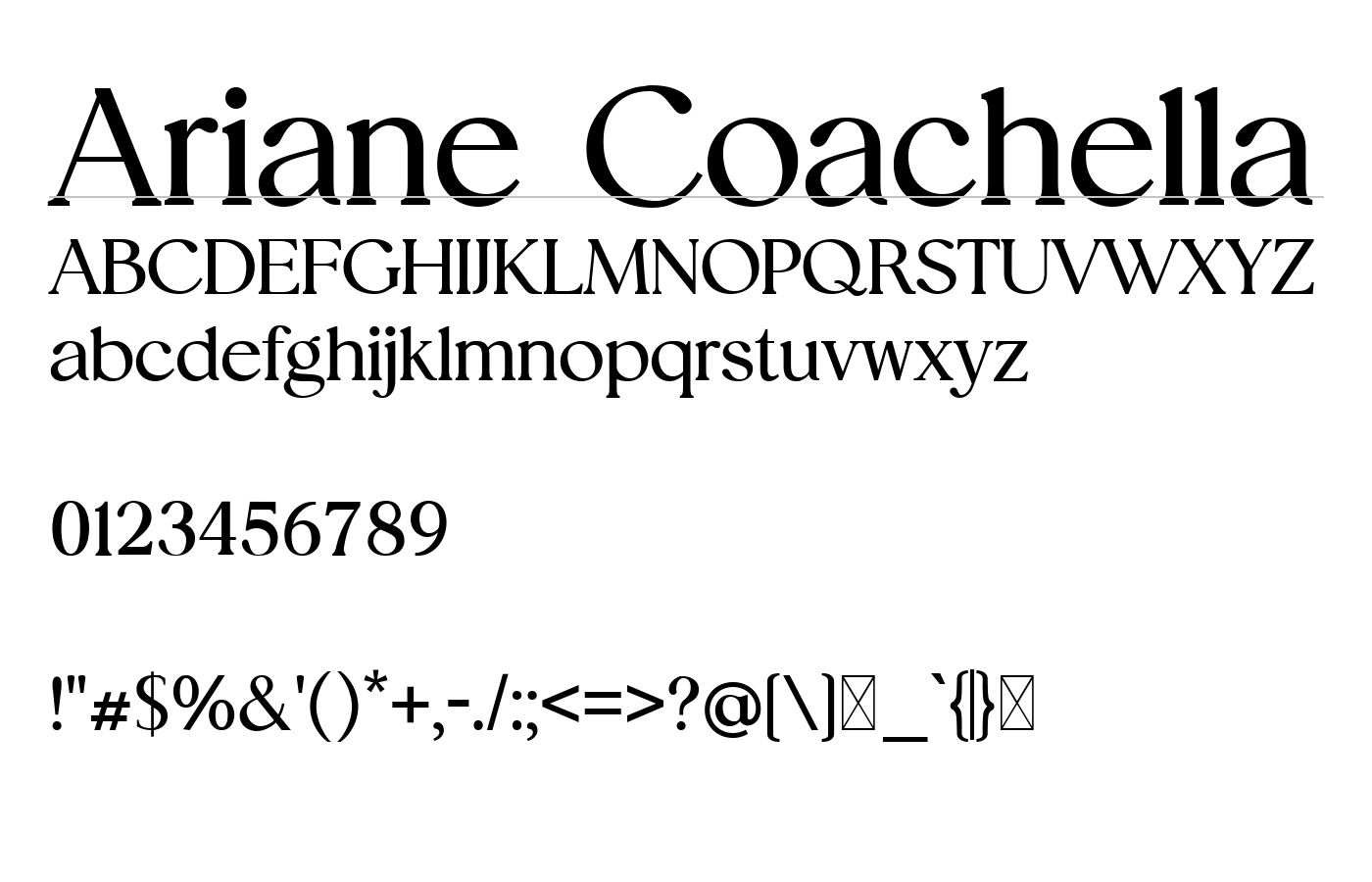
Ariane Coachella is a refined serif font characterized by its elegant high contrast between thick and thin strokes and delicate bracketed serifs that give it a classic yet contemporary feel. Its moderate x-height, combined with distinct single and double-story letterforms, creates a sophisticated and readable appearance, ideal for upscale branding, editorial design, and luxury packaging. This font balances tradition and modernity, making it perfect for projects seeking a polished and timeless impression.
Ariane Coachella Font
About Ariane Coachella Font